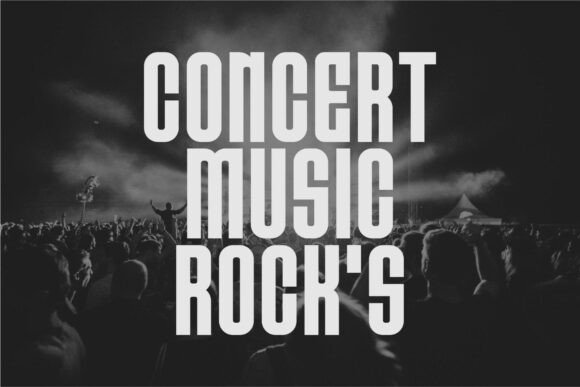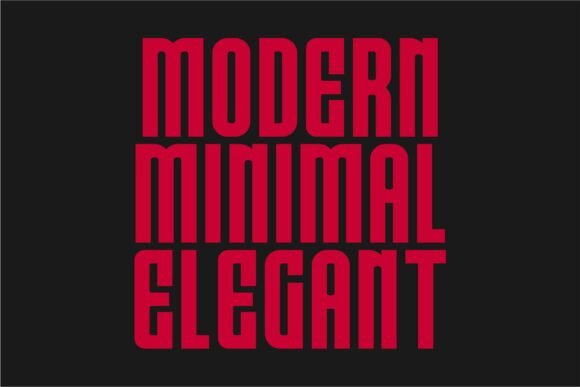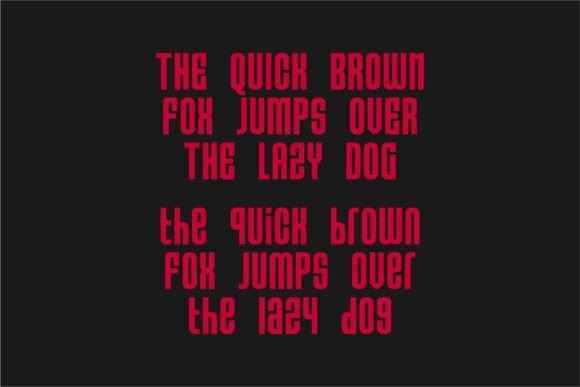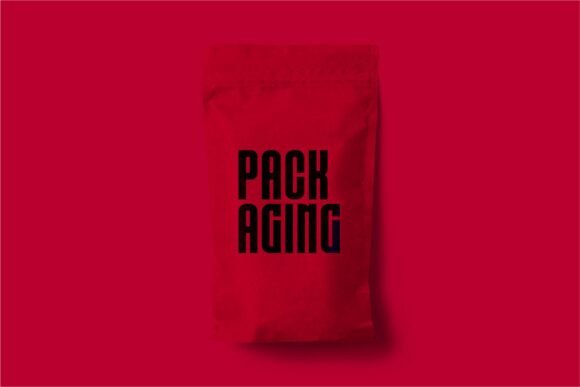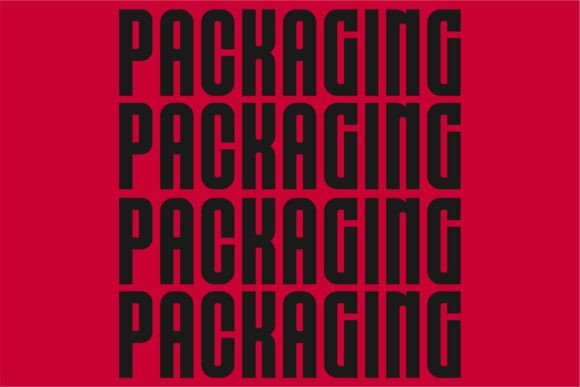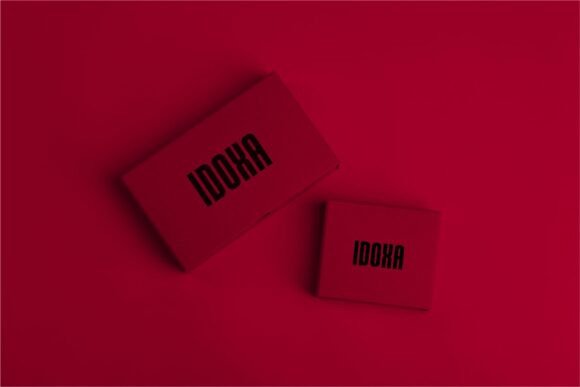
The Perfect Typography for a Bold Statement
Have you ever stared at a blank page, trying to find the perfect font to convey your message? The struggle is real, but it’s moments like these that make the discovery of a great font truly special. For designers and creatives, finding the right typography can be the difference between a project that stands out and one that blends in.
Enter Braxio Font, a bold, tall display sans-serif font designed to make a statement. With its contemporary twist, Braxio Font is perfect for modern branding, attention-grabbing displays, and editorial layouts that require a touch of sophistication. Its clean and confident structure makes it a valuable addition to any designer’s toolkit, offering a unique balance of power and minimalism that’s hard to find in other fonts.
Braxio Font Key Features
- Font Type: Braxio Font is a sans-serif font, designed for digital use.
- Character Set: Supports a wide range of languages, including Latin, Cyrillic, and Greek scripts, with over 800 glyphs.
- Unique Characteristics: Braxio Font features a distinctive geometric design with clean lines and rounded edges, making it ideal for modern and minimalist designs.
Designer Review: Braxio Font
Overall, I think Braxio Font is an interesting addition to the font family. ✨ The bold, modern aesthetic is sure to appeal to designers looking for a clean and contemporary look. The font’s versatility shines through in its various weights and styles, making it perfect for a wide range of applications, from headlines to body text.
Here are some specific things I like about Braxio Font:
- ✨ High-quality design with attention to detail
- ✨ Wide range of weights and styles to suit different design needs
- ✨ Excellent legibility, making it perfect for both print and digital use
- ✨ Highly customizable, allowing designers to fine-tune the look to their liking
However, I do have a few concerns:
- ⚠️ Limited support for languages that require complex typography
- ⚠️ Some users may find the font too bold or overwhelming, depending on the design context
- ⚠️ The font’s modern aesthetic may not be suitable for traditional or vintage-themed designs
Overall, I think Braxio Font is a solid choice for designers looking for a modern, versatile font. While it may not be perfect for every design project, its strengths far outweigh its limitations. With some careful consideration and fine-tuning, Braxio Font can be a valuable addition to any designer’s toolkit.
Braxio Font is suitable for a variety of designs, including:
- Business cards and stationery